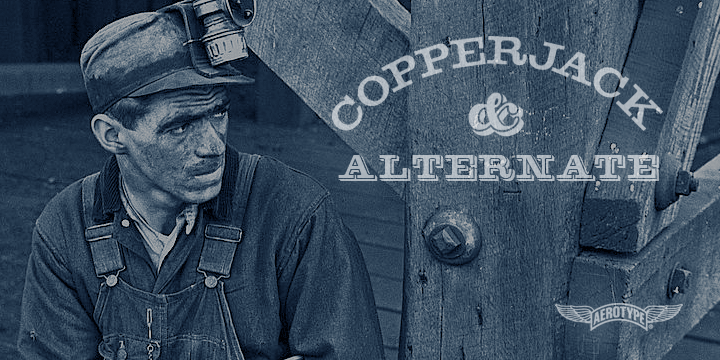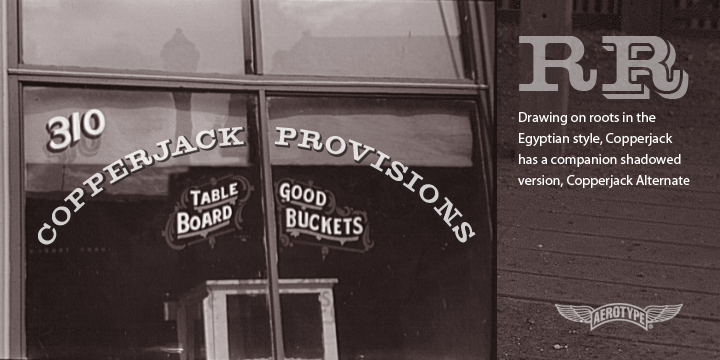
Copperjack Pro is a western and display slab font family. This typeface has two styles and was published by Aerotype .
Drawing on roots in the Egyptian style, Copperjack Pro has a companion shadowed version, Copperjack Alternate Pro. Both fonts support Eastern European Latin and Baltic languages.